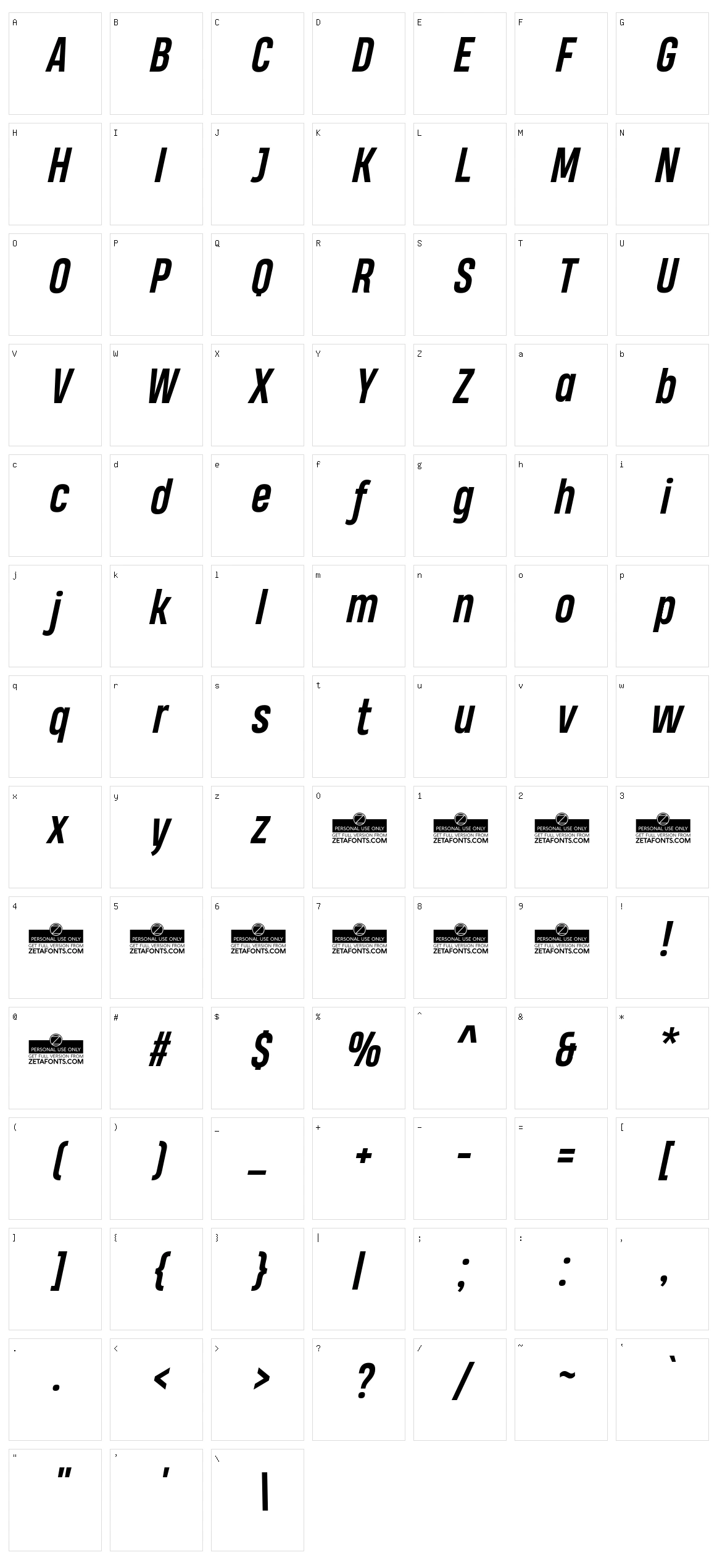
The free font Heading is carefully designed by Zetafonts, showcasing a thoughtful balance of creativity and usability and falls under the Sans serif font style. When you download the ZIP file, it contains only 3370.01 KB of font files, making it lightweight and quick to download. Please review the license details below to understand permitted usage and distribution rights. If license information is not available, we recommend using this font for personal projects only or contacting the author directly for commercial usage permissions.